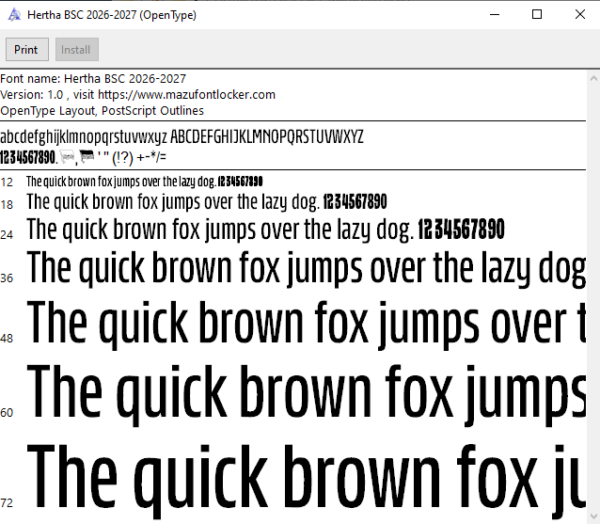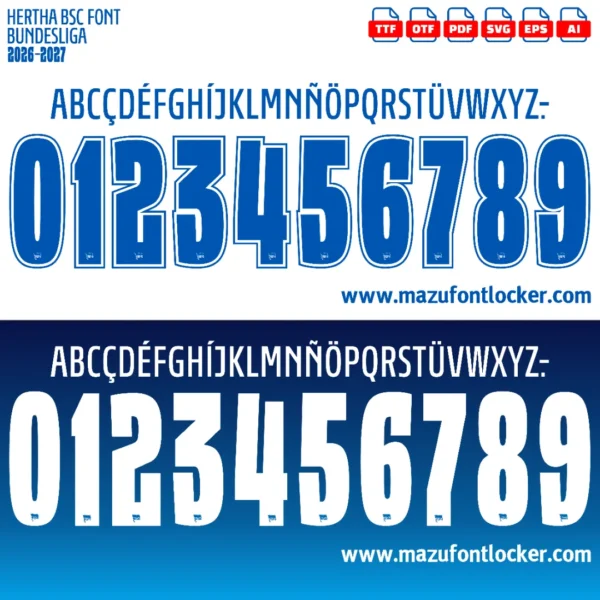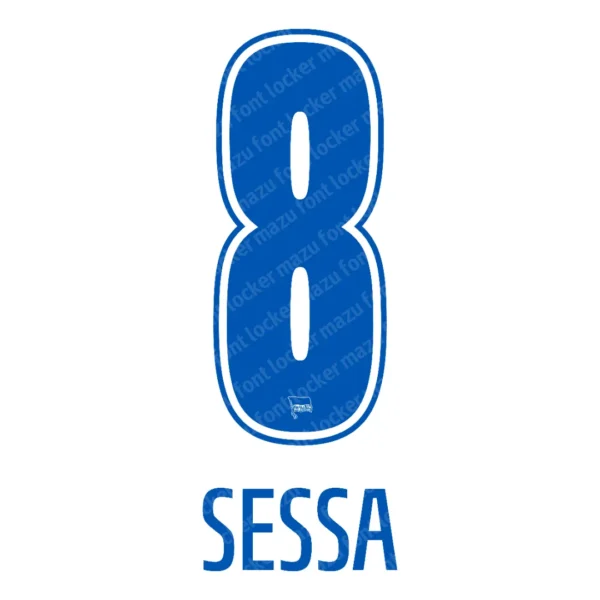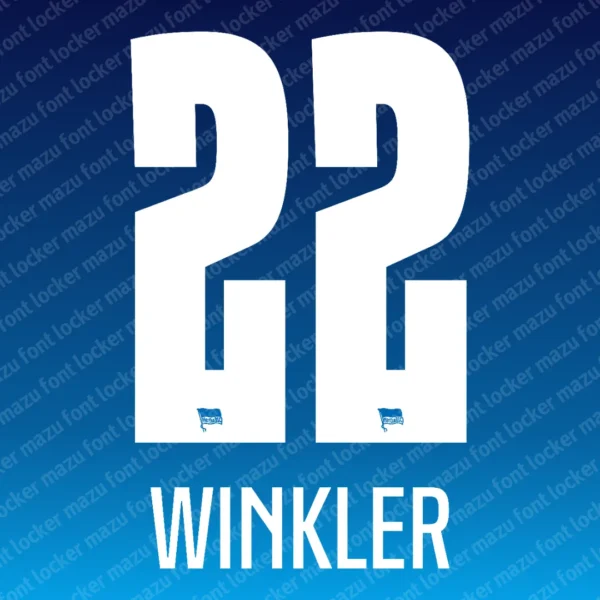
Hertha BSC 2026-2027 Font Vector – Epic Alte Dame Legendary Masterpiece
This font captures the commanding, razor-sharp, and thunderous lettering that perfectly embodies Hertha BSC’s iconic club identity, proud Berlin heritage, never-say-die mentality, and raw German football power — delivering unmatched authenticity, premium quality, volcanic energy, and elite Bundesliga dominance for professional jersey mockups, dynamic football graphics, premium sports branding, passionate fan creations, and high-end design projects.
Hertha BSC 2026-2027 Font Vector – Iconic Blue & White Typeface
The Hertha BSC 2026-2027 Font Vector is a premium typeface that accurately recreates the official match lettering worn by Hertha BSC during the 2026-2027 season. This high-quality vector font kit captures the bold, modern, and instantly recognizable typography that perfectly complements the club’s traditional blue and white identity.
Designed for professional designers, football enthusiasts, and passionate Hertha supporters, the Hertha BSC 2026-2027 Font Vector delivers exceptional authenticity for creating realistic jersey mockups, football merchandise, social media graphics, match posters, and custom fan artwork. Every character has been carefully recreated to match the classic yet contemporary visual style of one of Germany’s most historic football clubs.
Why Choose Hertha BSC 2026-2027 Font Vector
This font stands out thanks to its precise vector construction and authentic club styling. Every letter and numeral has been meticulously recreated to match the official shirt lettering for the 2026-2027 Bundesliga campaign. Whether you’re producing professional kit templates or creating eye-catching football content, the Hertha BSC 2026-2027 Font Vector delivers a genuine match-ready appearance.
The lettering featured in the Hertha BSC 2026-2027 Font Vector combines clean geometric lines with powerful modern proportions. The result is a premium and highly readable typeface that reflects Hertha BSC’s fighting spirit, rich Berlin heritage, and passionate fan culture.
• Complete uppercase A–Z alphabet and numbers 0–9 in authentic Hertha BSC 2026-2027 style
• Special Hertha BSC badge glyph – Press the “:” (Colon) key to insert the club badge
• Includes authentic Bundesliga badge glyph placement beneath player numbers
Hertha BSC 2026-2027 Season
The 2026-2027 season represents a new chapter for Hertha BSC as they continue their journey in German football. Wearing their iconic blue and white colors, the club aims to showcase the resilience and passion that has defined them for over 130 years.
The Hertha BSC 2026-2027 Font Vector is an independently designed typeface package inspired by the official shirt lettering for the 2026-2027 season. It has been carefully recreated for football enthusiasts, graphic designers, collectors, and creators producing custom jersey concepts, football artwork, and fan-made projects.